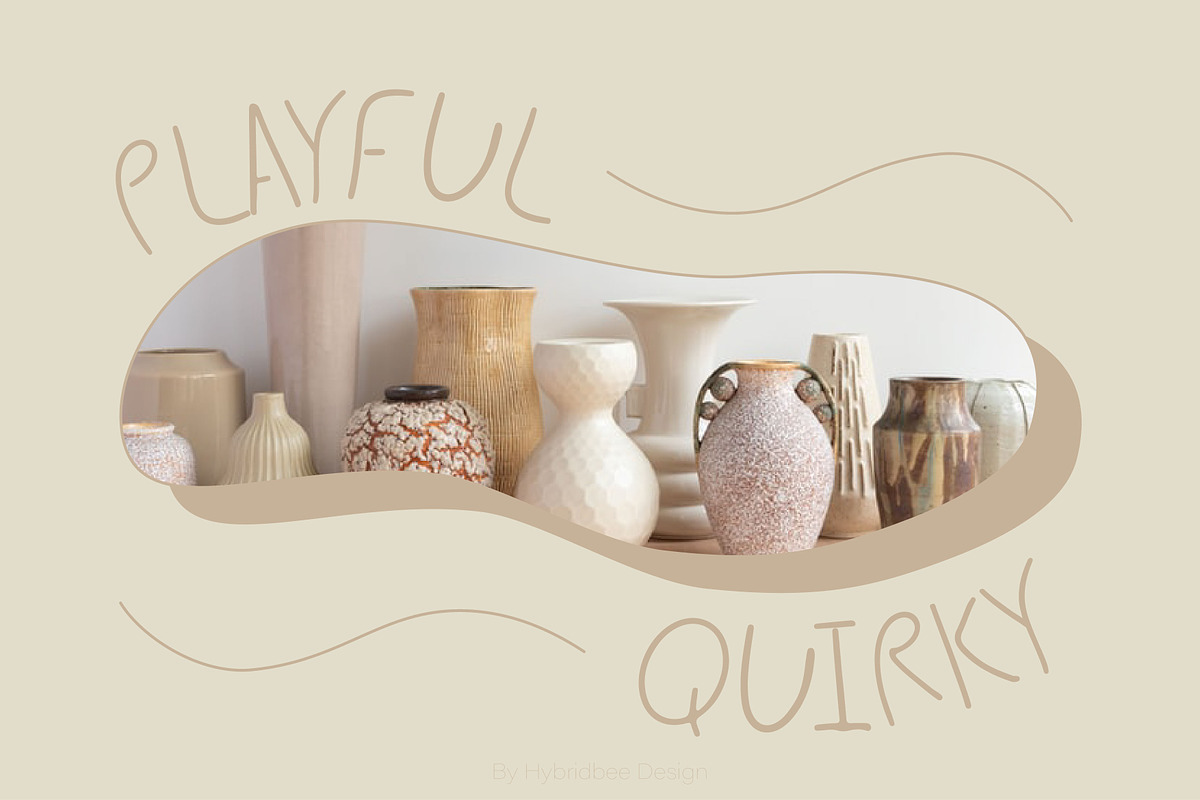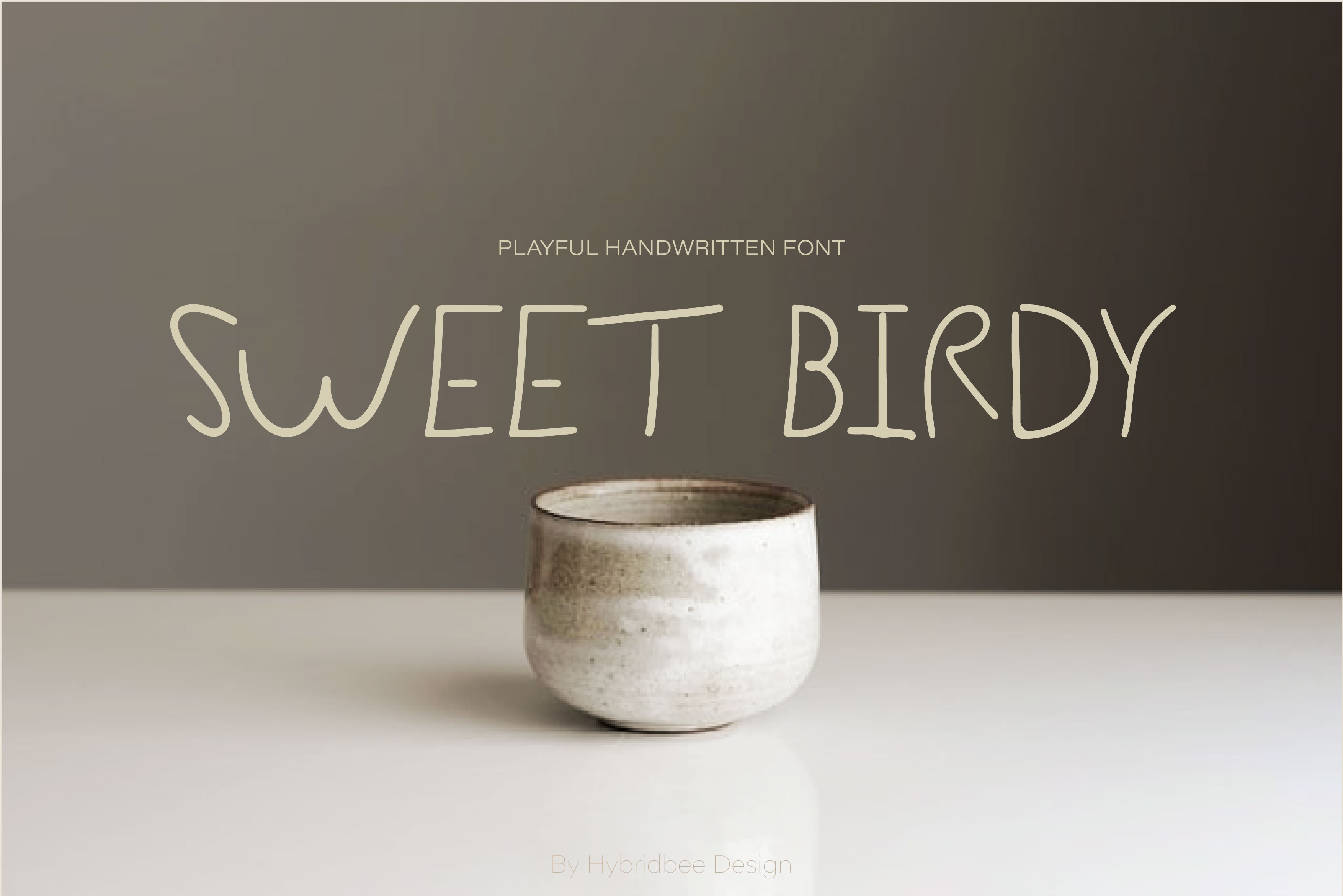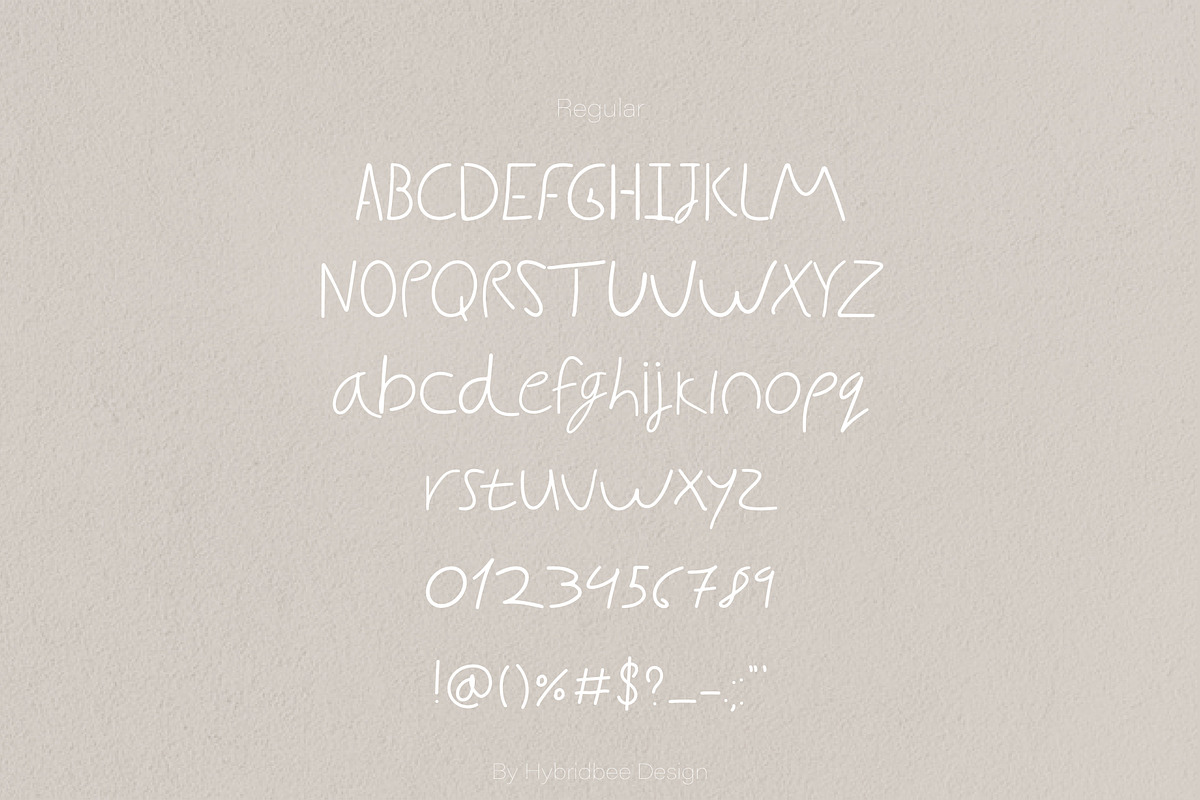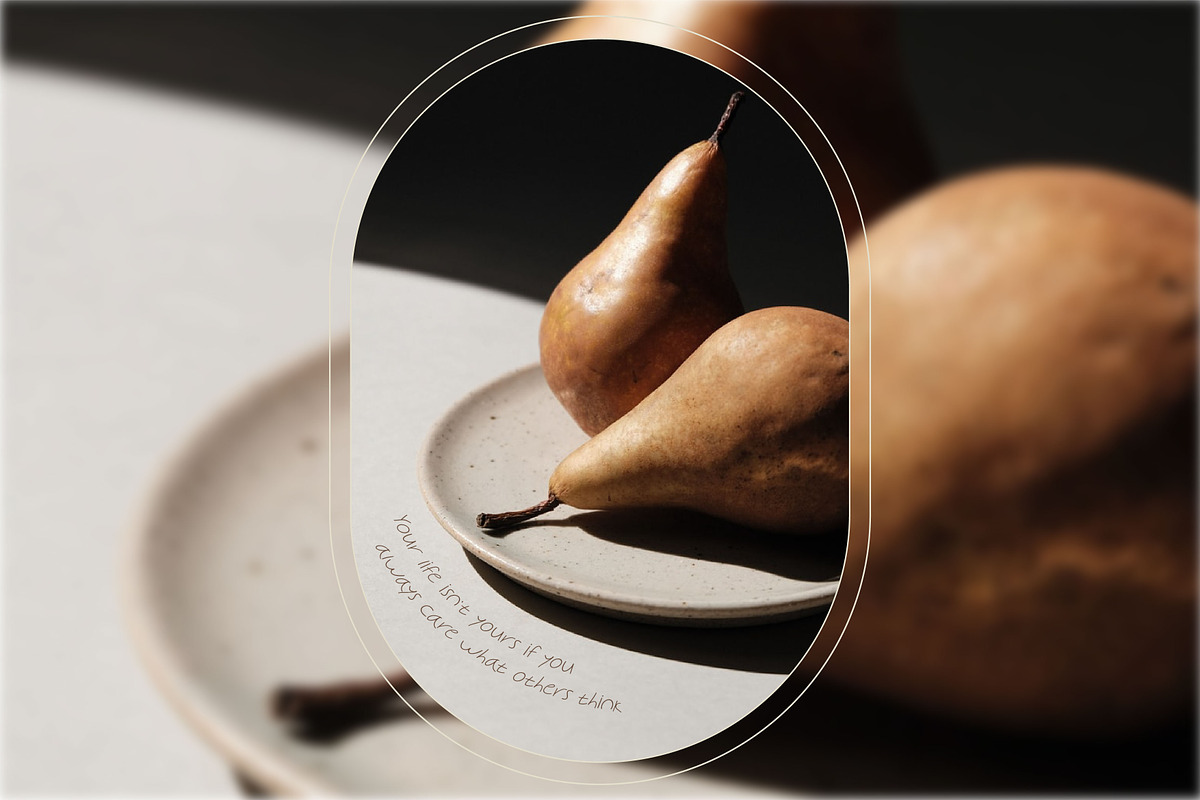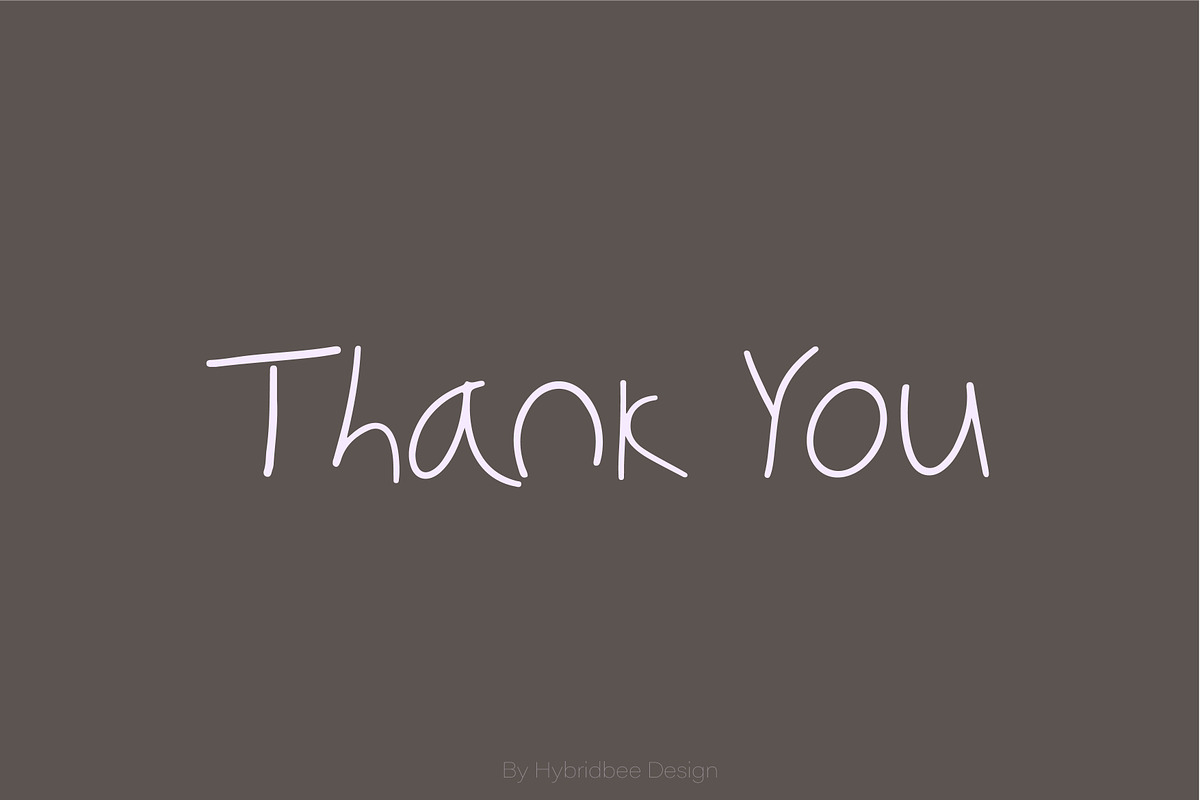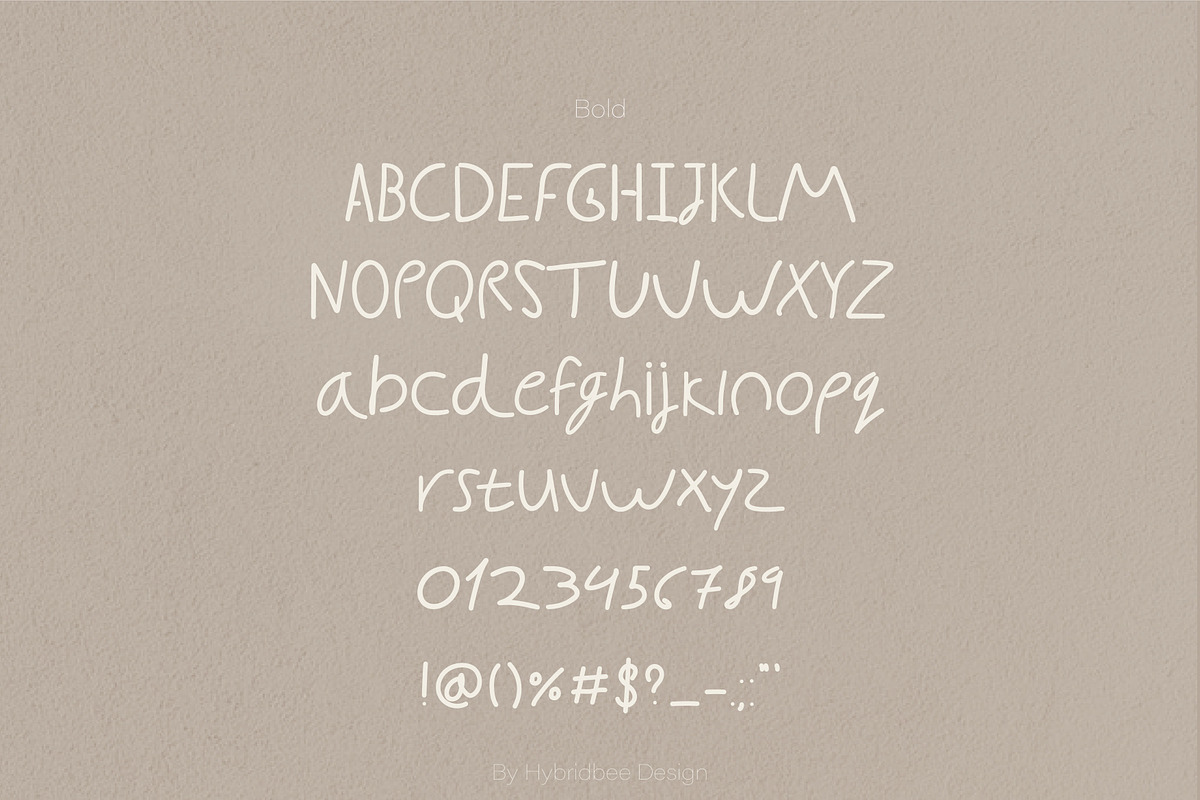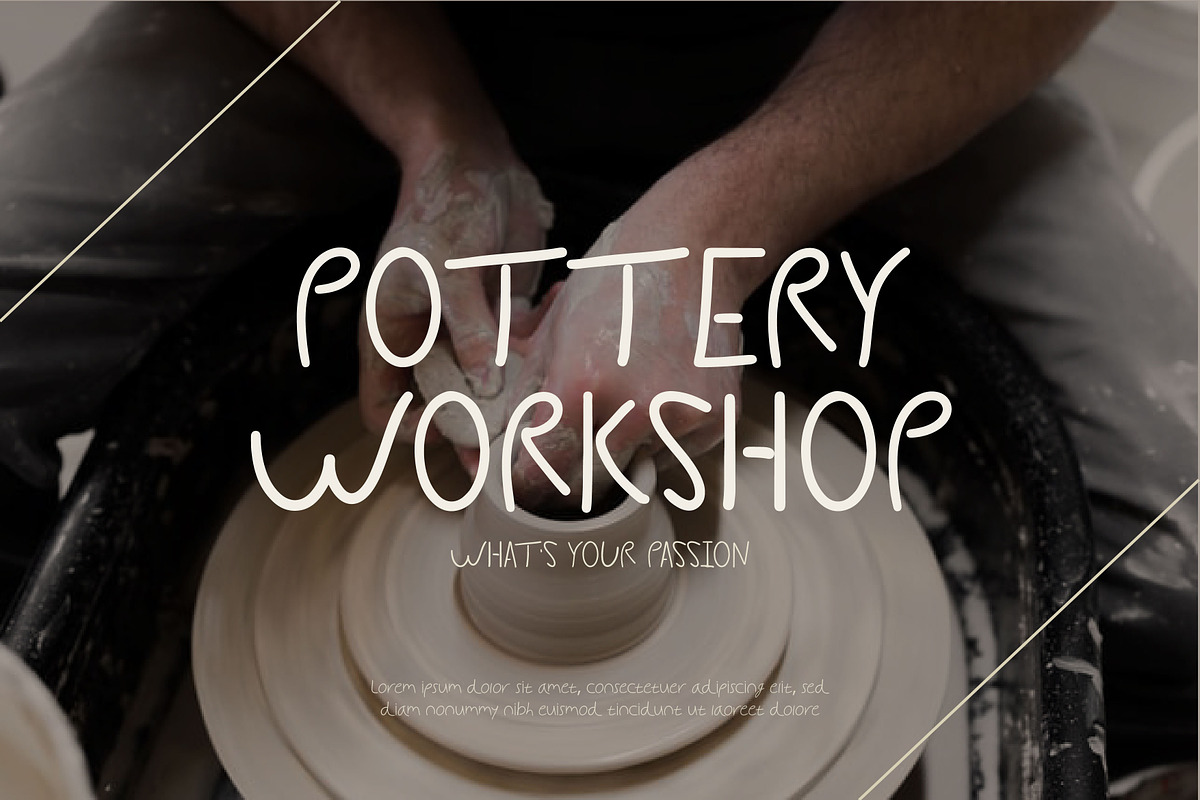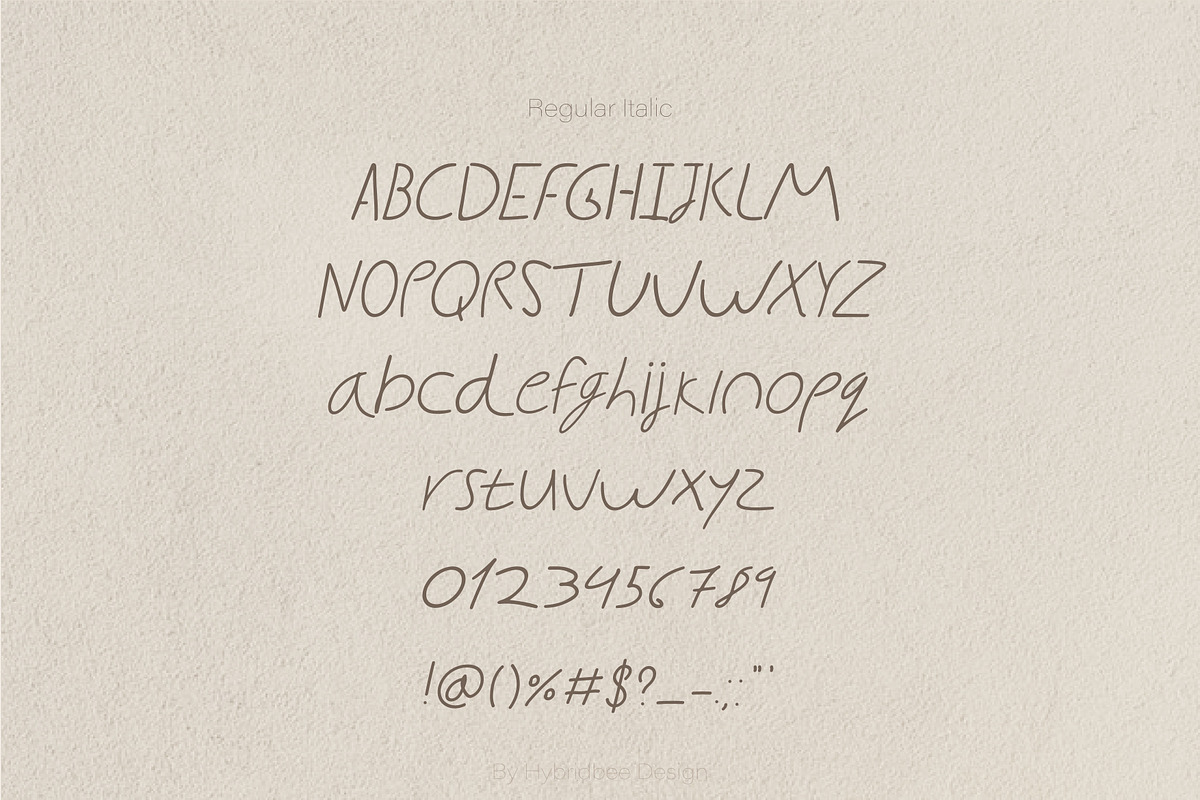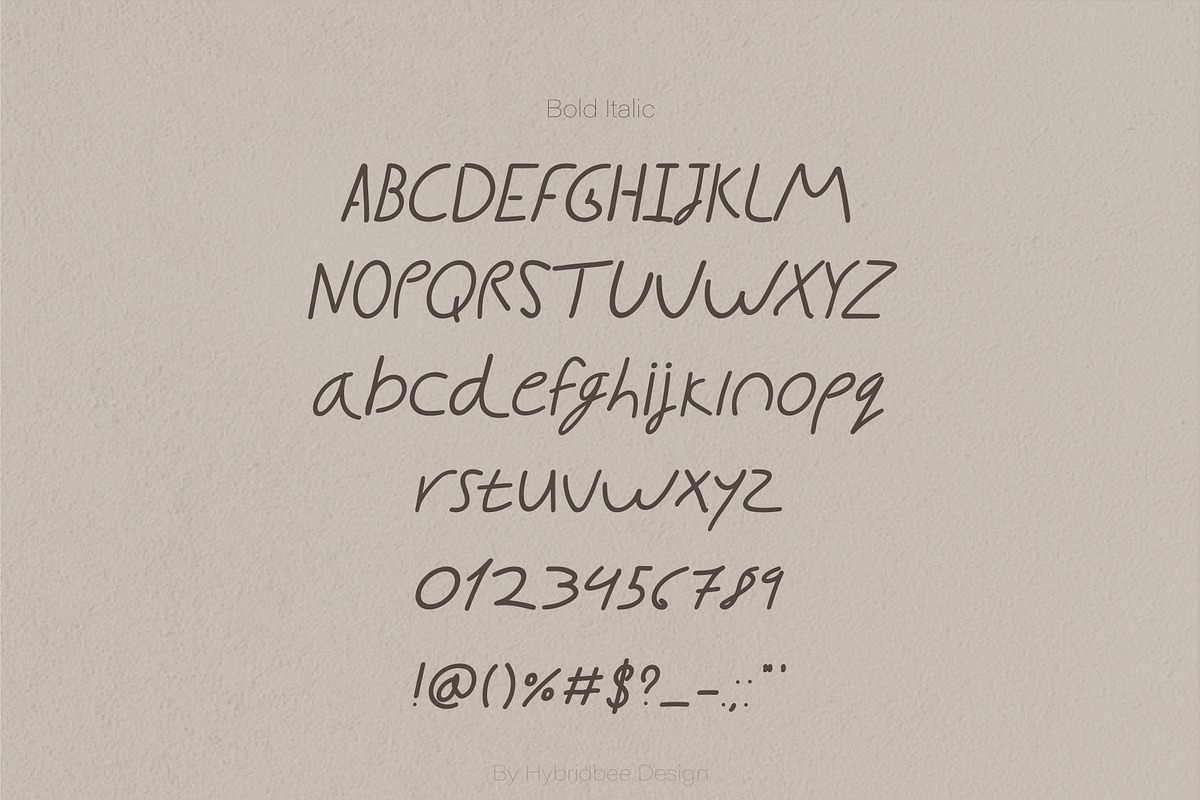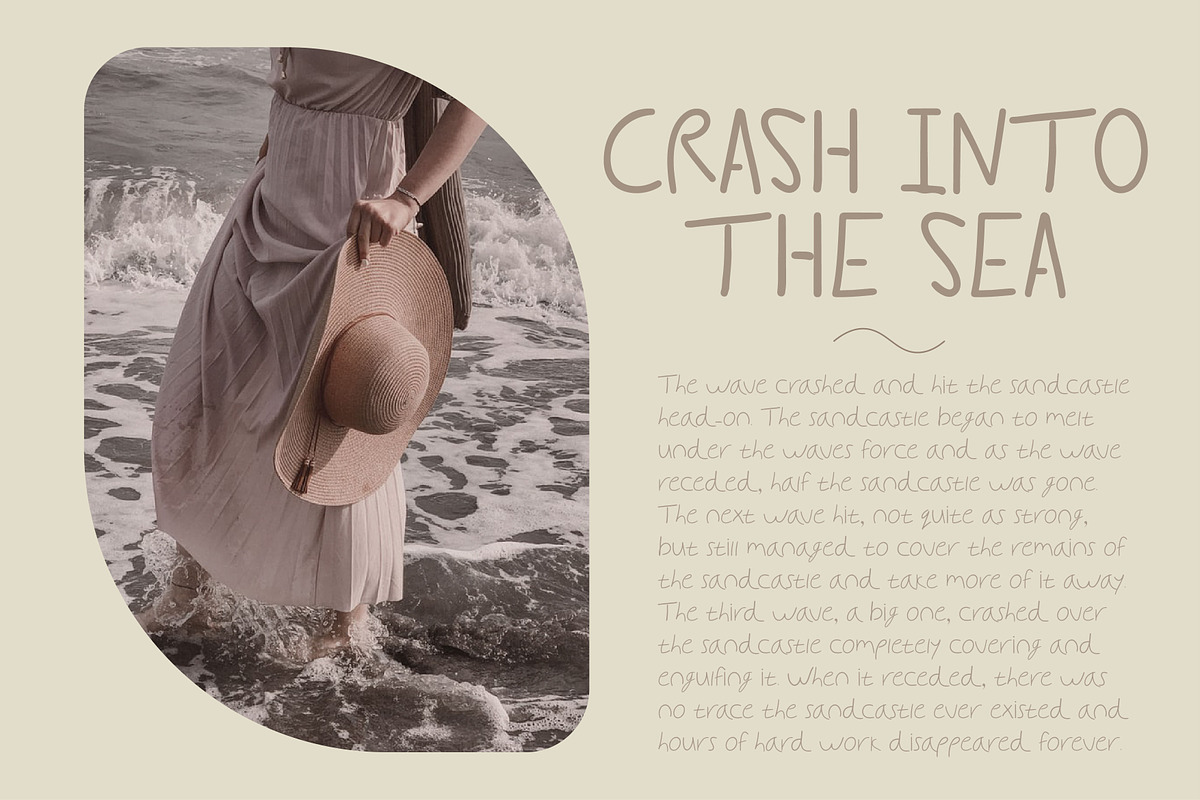
SWEET BIRDY – Handwritten Font
Sweet Birdy is a handwritten font with a playful and quirky edge. It includes uppercase letters, lowercase letters, numerals and some punctuations in regular, italic, bold and bold italic. The font has a minimalistic style and is great for adding a homemade touch to any design. It can be used to create quotes, headlines, branding, packaging, logo, flyers, etc.